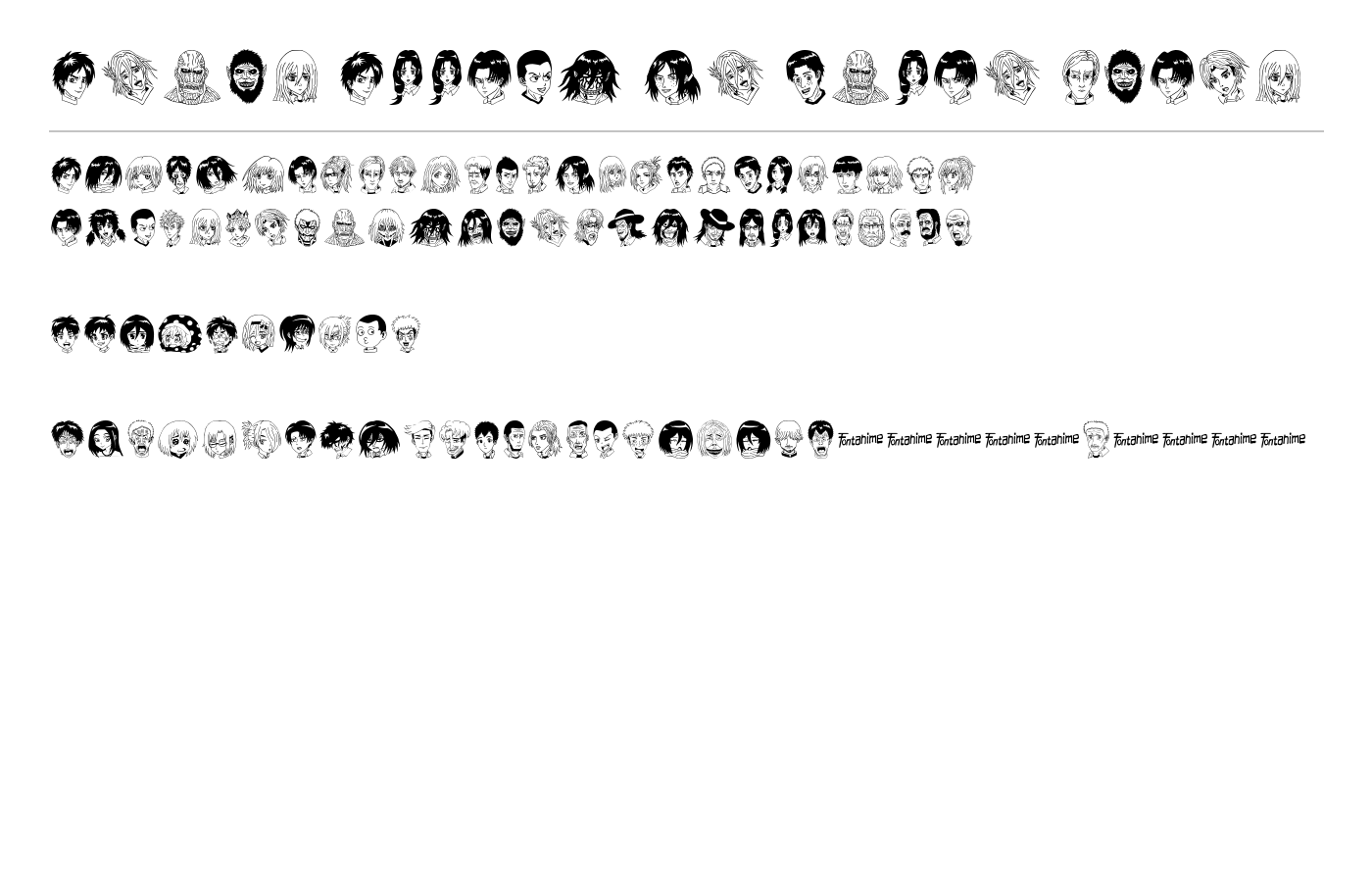
Anime Attack On Titan Image Font is a highly stylized, playful display typeface made entirely of intricate character illustrations from the popular anime series. This unique font captures the distinct personalities and dramatic expressions of the series’ characters, making it perfect for creative projects, fan art, or branding that seeks to evoke a bold and dynamic anime vibe with a strong visual impact.
Anime Attack On Titan Image Font
About Anime Attack On Titan Image Font